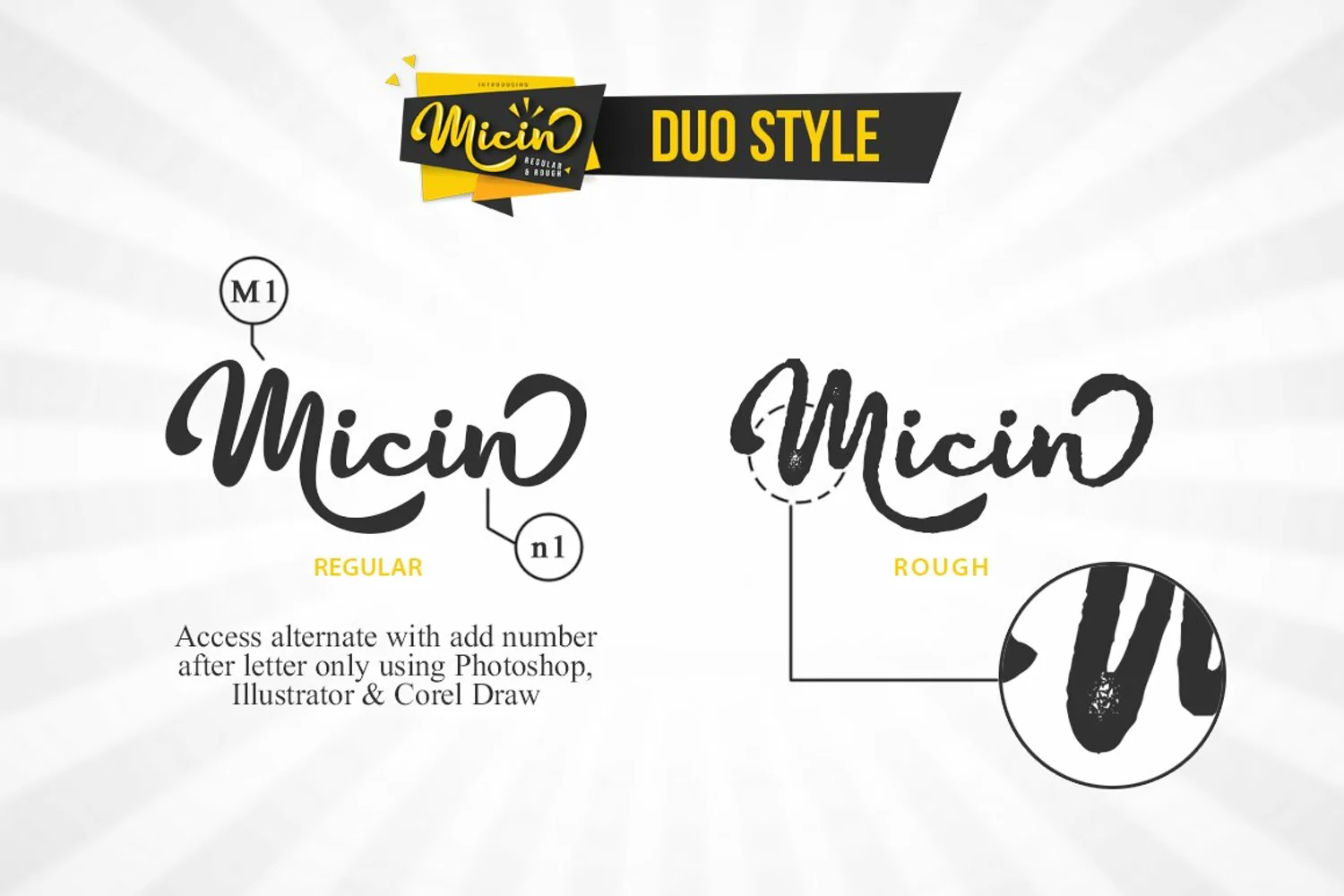
Micin Script Font is a fun bold script font with two different style, regular and rough. Micin Script Font suitable for logo, branding, greeting card, poster and any design that you create.